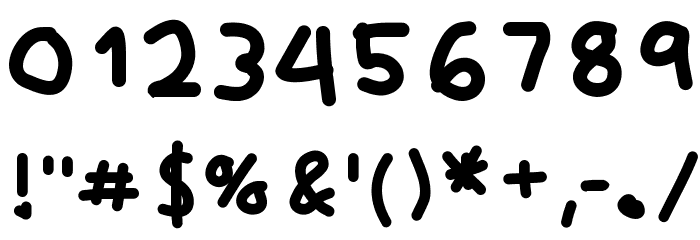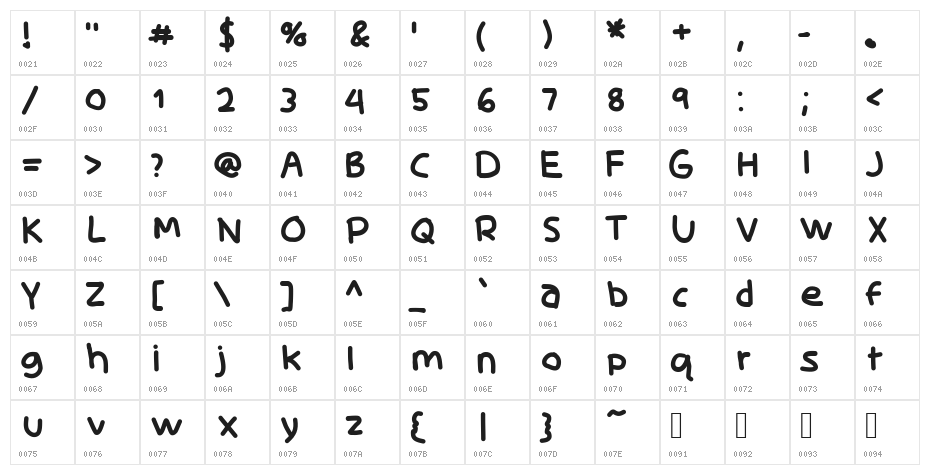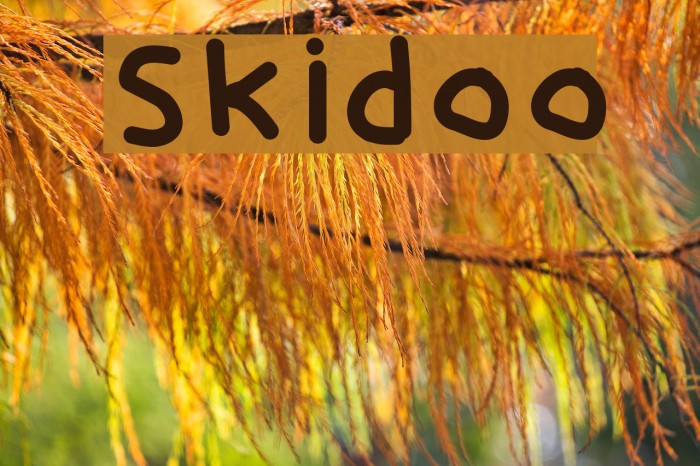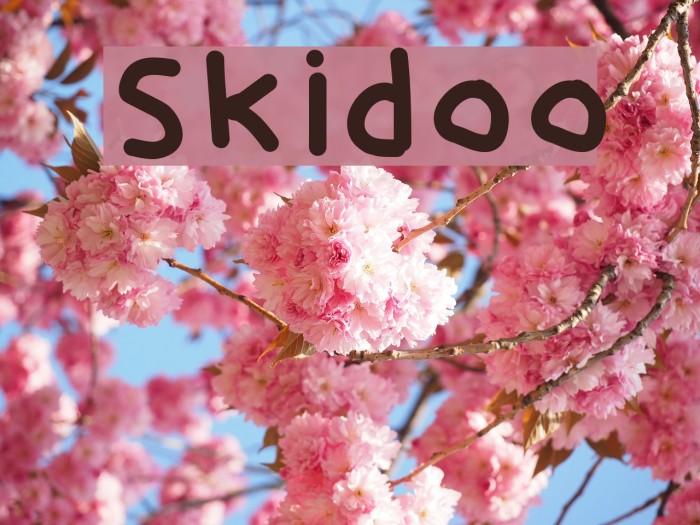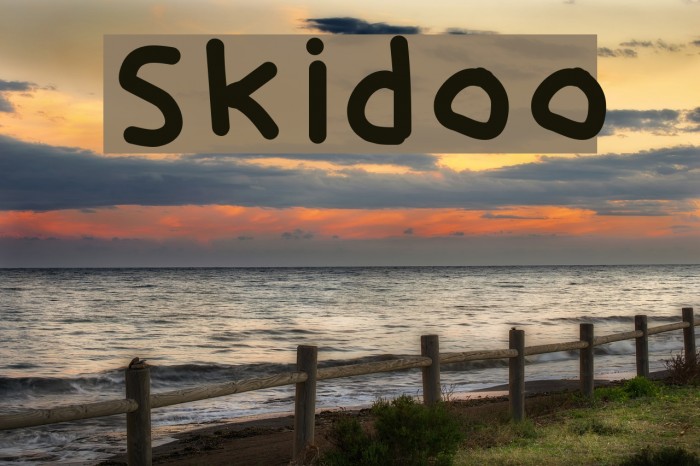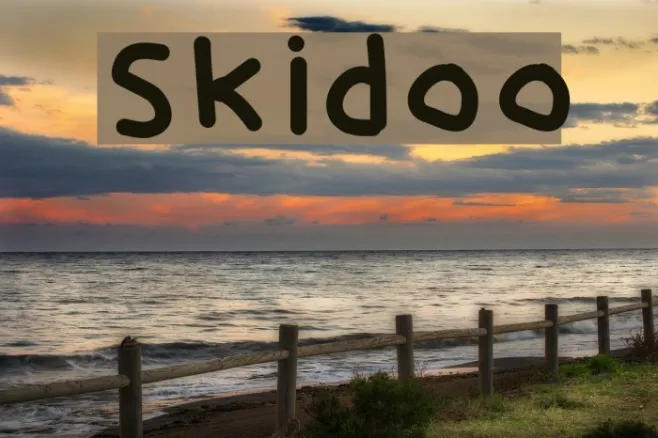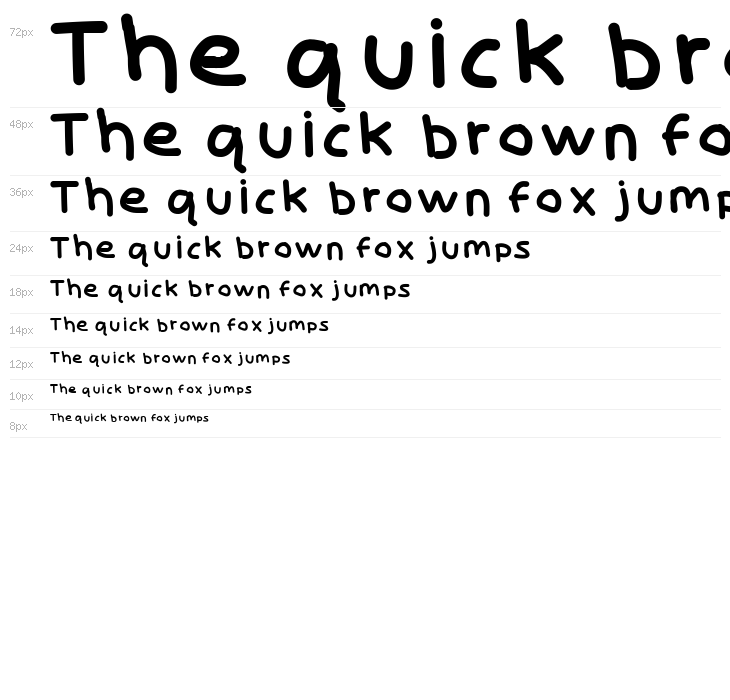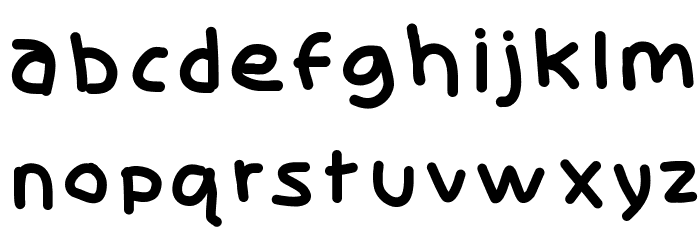
Skidoo Font
Skidoo Description
This playful and informal font features a handwritten style with rounded edges and a casual appearance. The letters are slightly irregular, adding a whimsical touch to the overall design. The uppercase and lowercase characters maintain a consistent flow, while the numbers and special characters complement the font's friendly aesthetic. Its organic and approachable look makes it suitable for projects that require a personal or creative touch.
| Use Case | Headlines, Logos, Informal text |
| Proposed Projects | Ideal for children's books, greeting cards, playful branding, and casual invitations. |